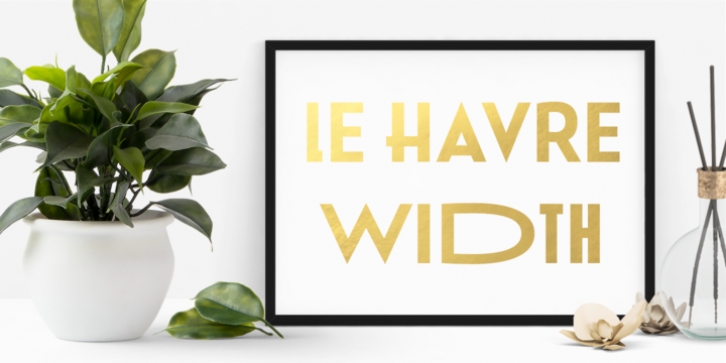
"Le Havre Width is the loveable putty of fonts. Stretch it. Squish it. Squeeze it. Whichever way you play with it, you're bound to find hours of fun ahead.
Looking for even more fun with this geometric sans? Try adding in some of the alternate ligatures, or use the two different art deco styles included with the font. The all-around whimsical nature of Le Havre Width is perfect for toys, posters, T-shirts, cards, and anywhere else where fun is the name of the game."